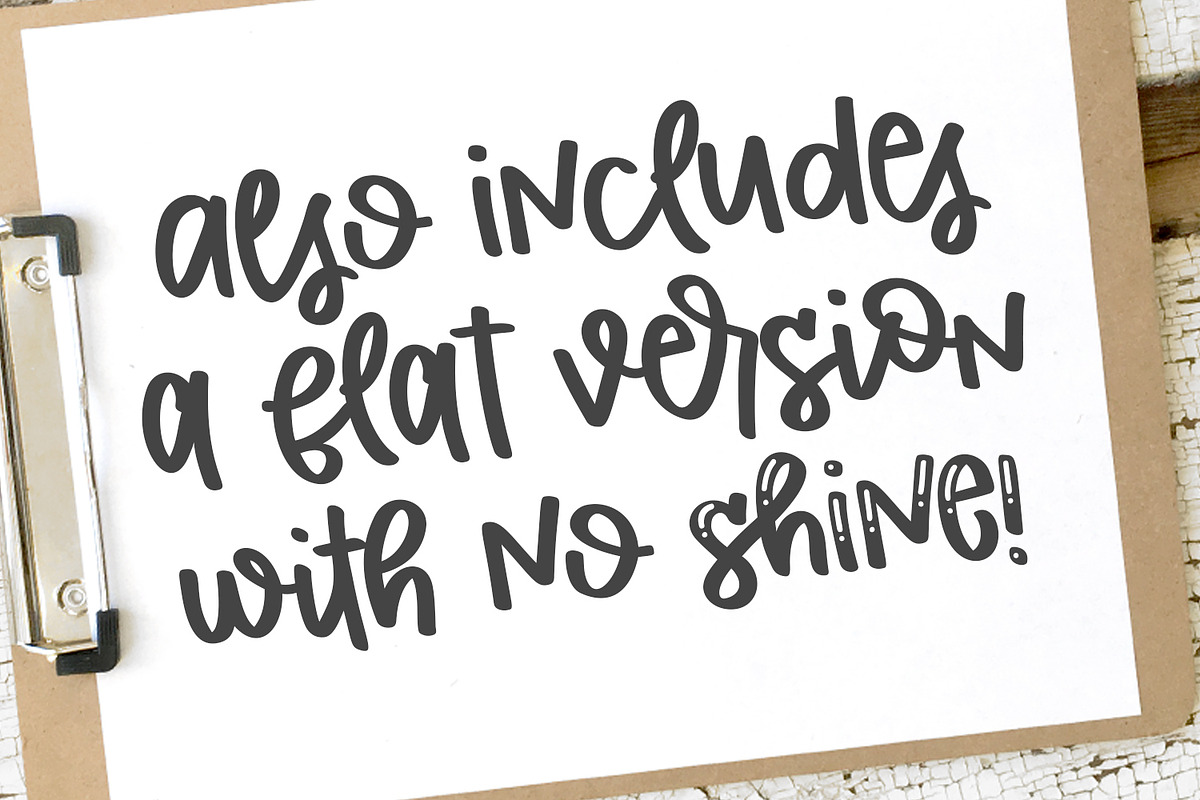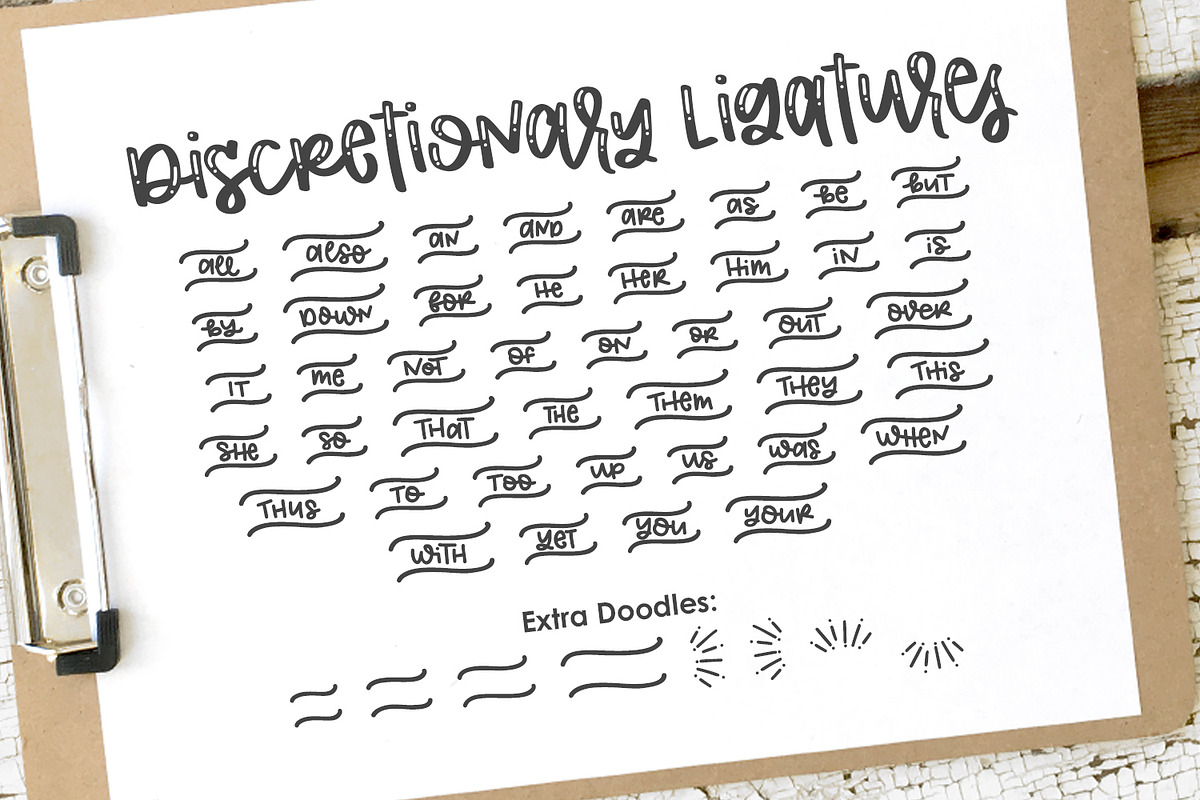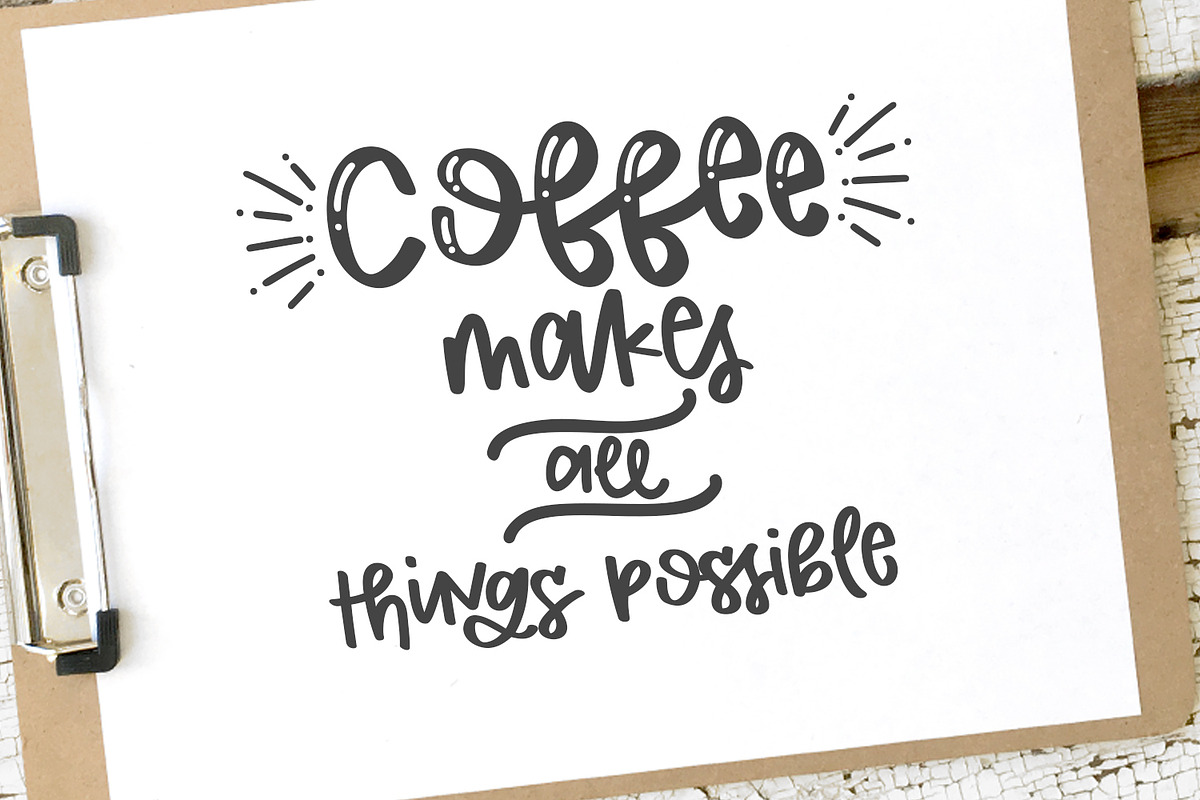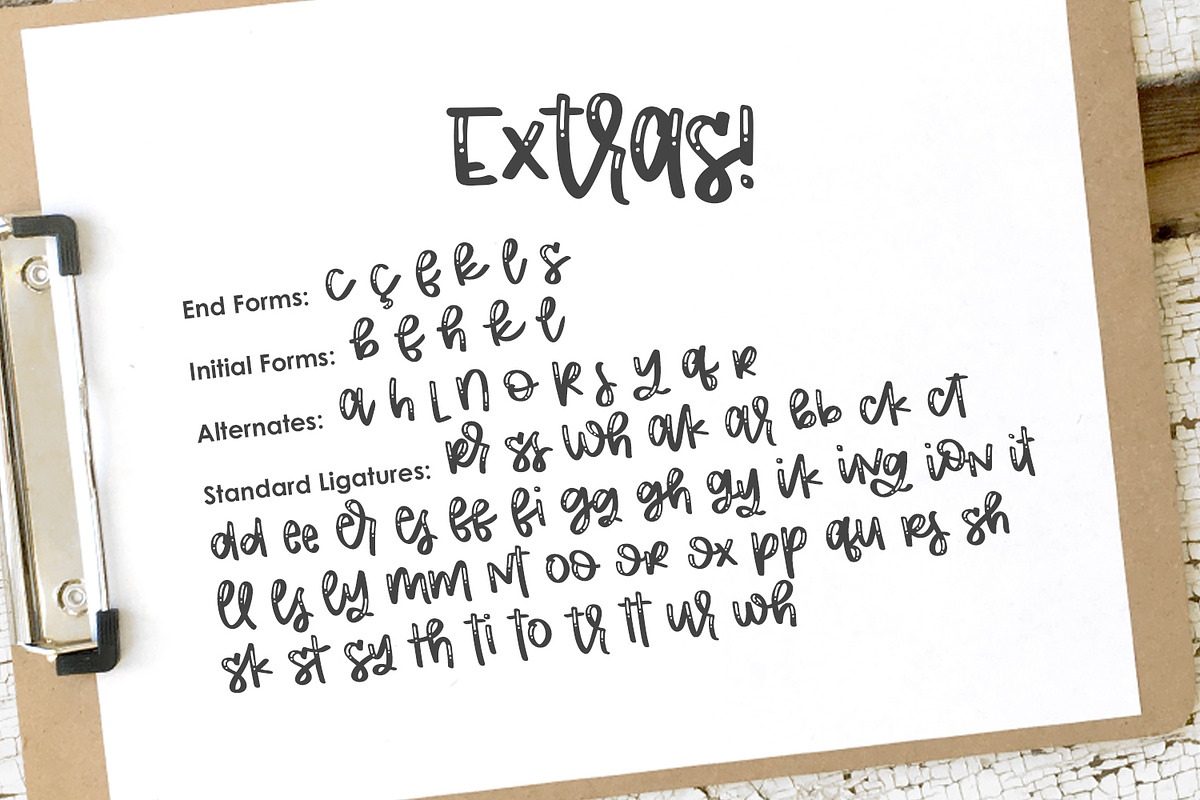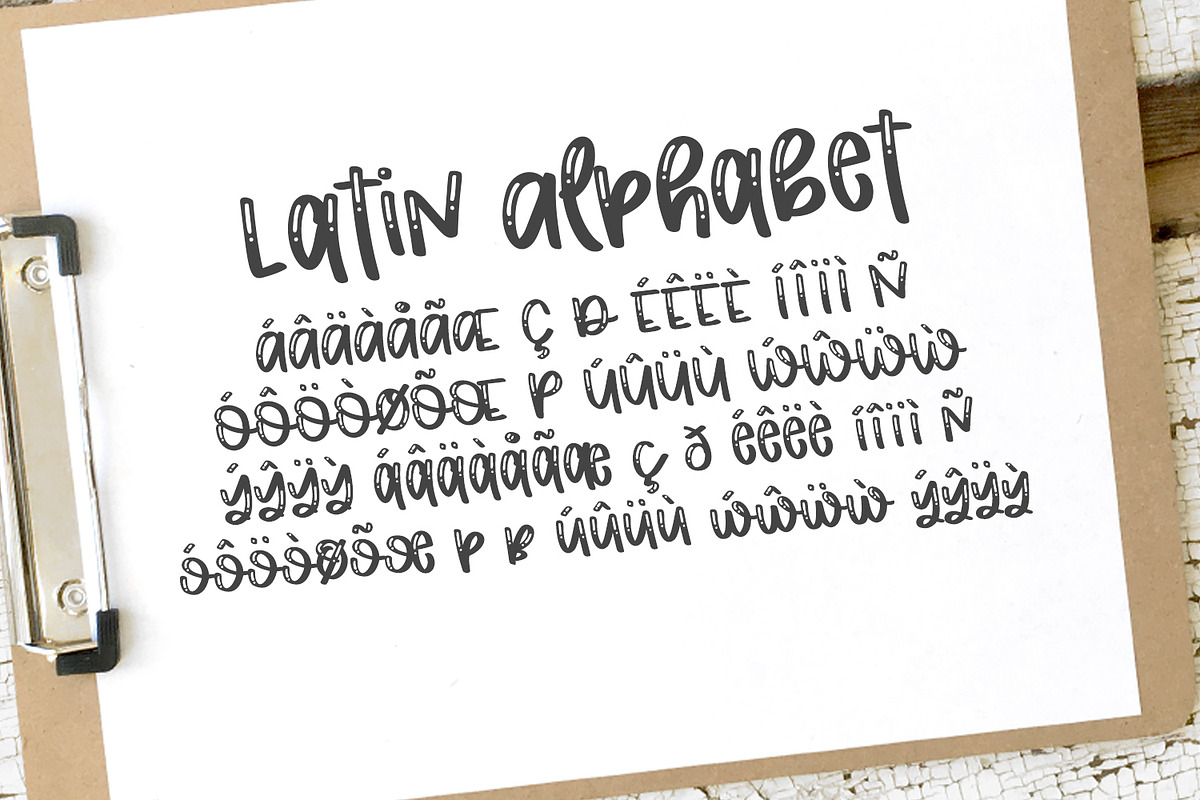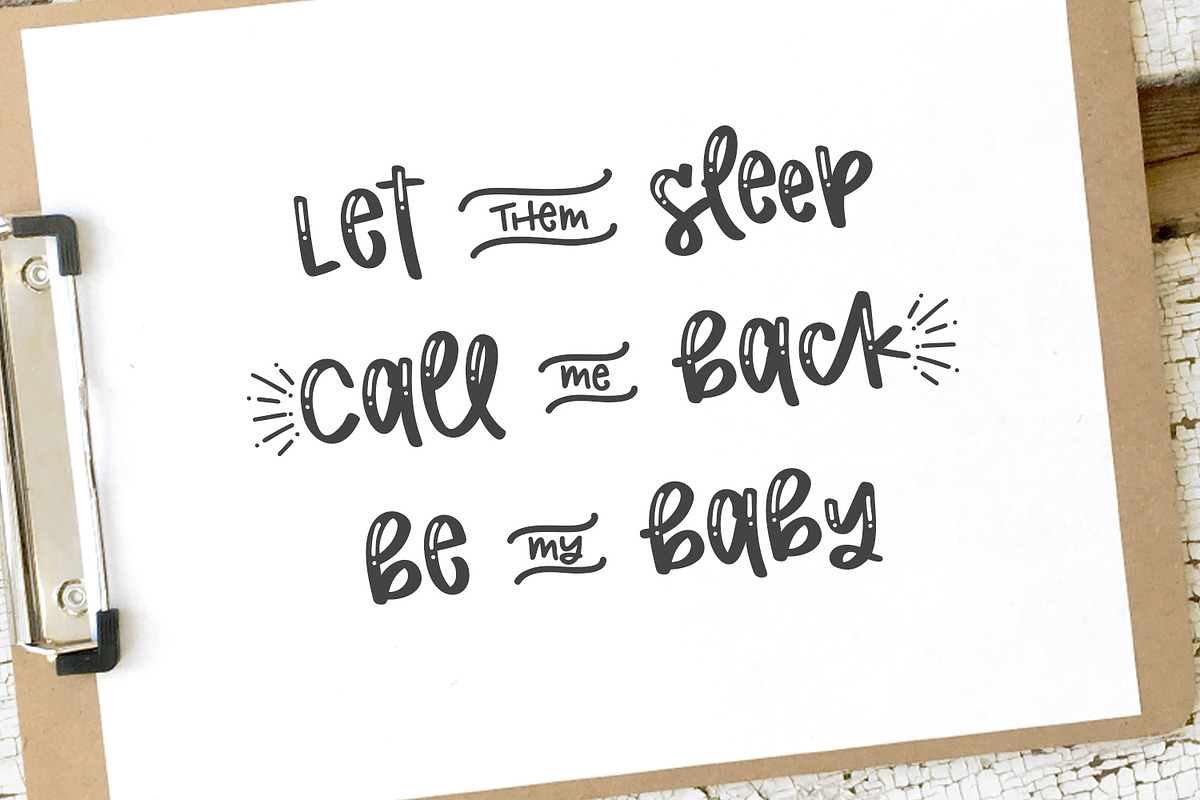
The Smudge Factory Font
A hand lettered font with a ton of extras!
• 2 versions of this font are included; a font with shine lines, and a plain "flat" font
• Latin characters included